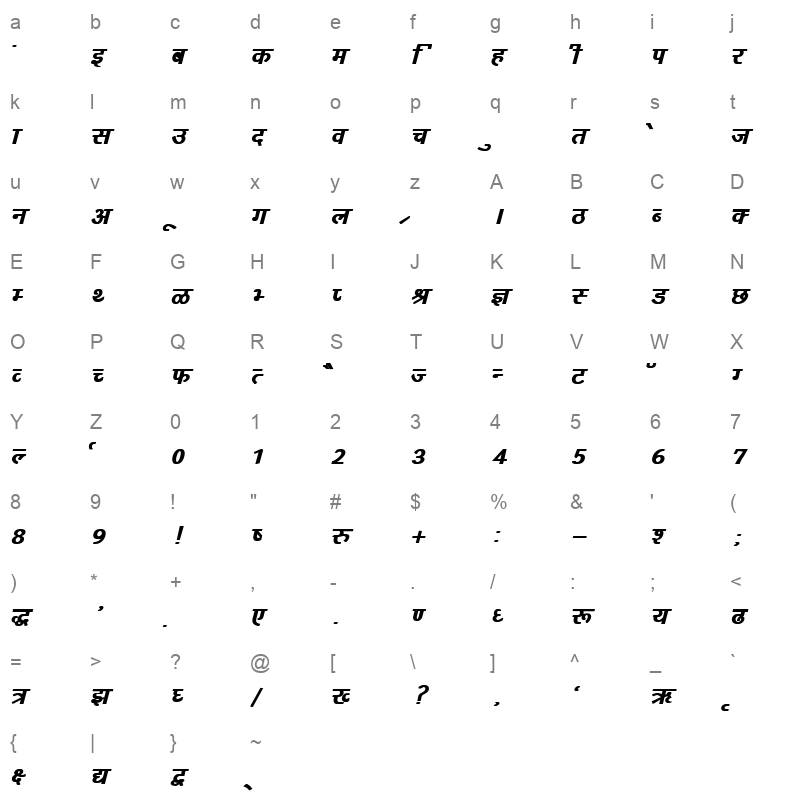
Kruti Dev 163 Bold Italic marathi Font
The Kruti Dev 163 Bold Italic font is a beautifully designed Bold Italic typeface. It has been downloaded 264 times and rated 3 out of 5 by 3 users.
Preview of Kruti Dev 163 Bold Italic